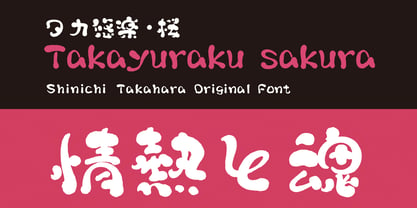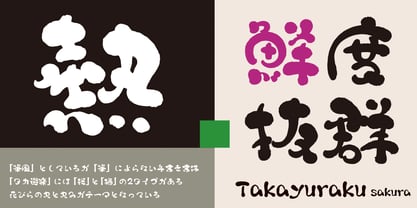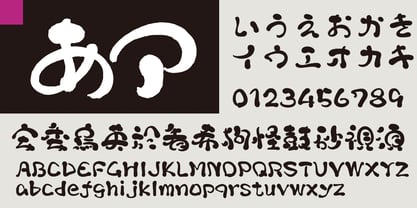
Takayuraku-Sakura
by Taka Design Production
The Takayuraku-Sakura Font Family was designed by and published by Taka Design Production. Takayuraku-Sakura contains 1 styles. More about this family
This is one of the “Takayu” series and is a handwritten typeface. There are two types: “Sakura” and “Ume”. This typeface was created with the image of cherry blossoms in full bloom. The theme of this typeface is “round” and roundness like petals.